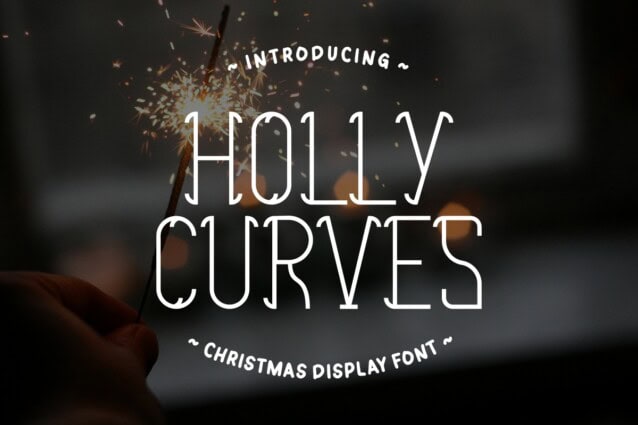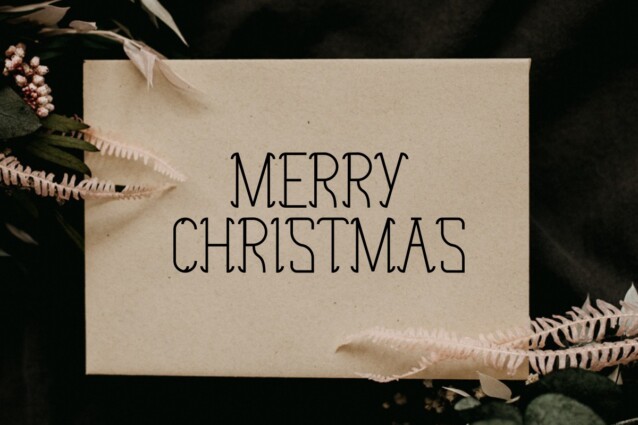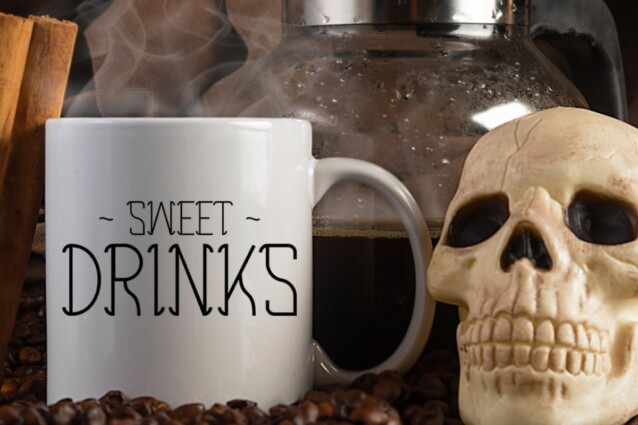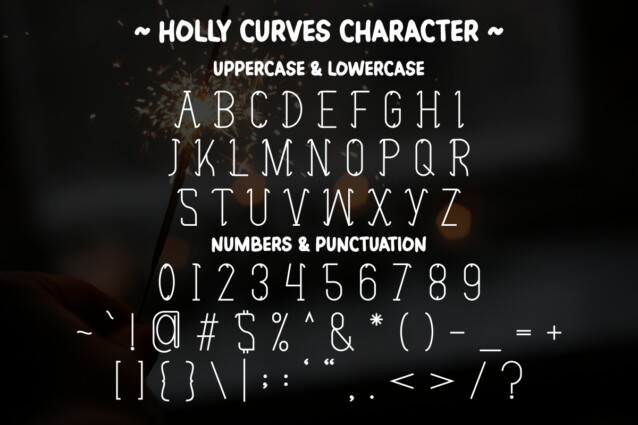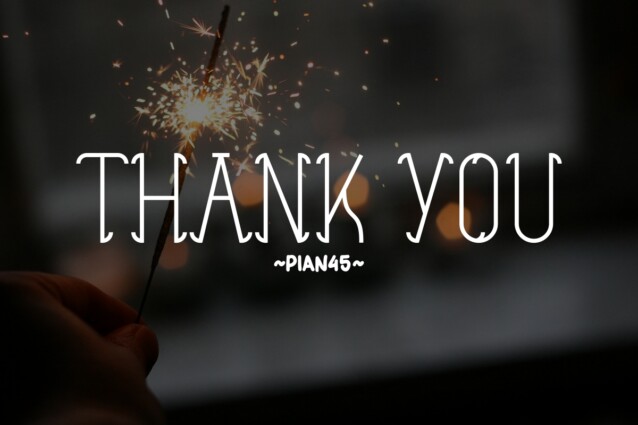
Holly Curves Font
Holly Curves Font – the elegant display font that embodies the enchantment of the winter holiday season. This unique typeface features gracefully curved lines and captures the spirit of Christmas with a touch of seasonal charm.